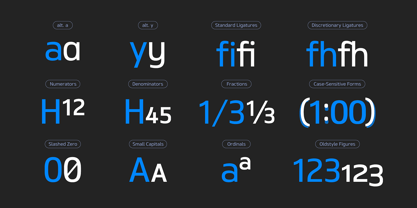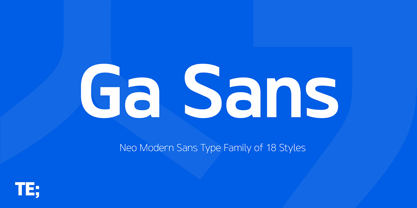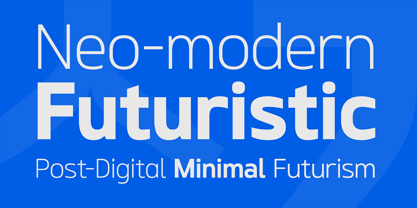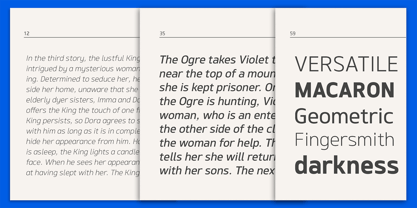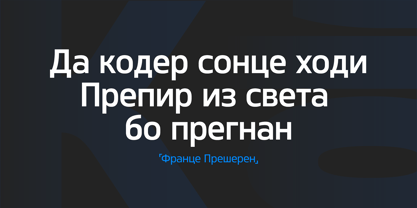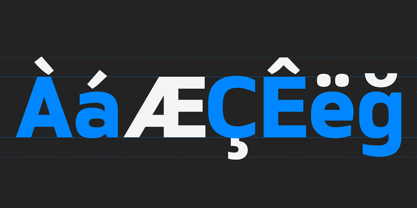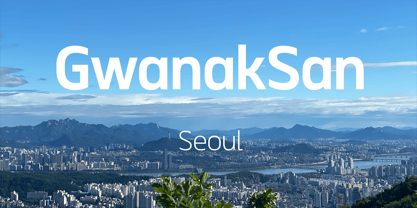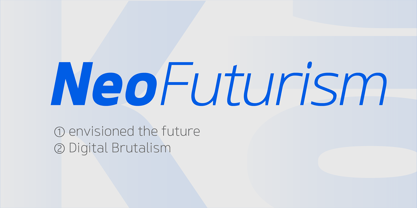
Ga Sans
The Ga Sans Font Family was designed by Hyun-Seung Lee and published by Typeedition. Ga Sans contains 18 styles and family package options. More about this family
Ga Sans Family is a futuristic, neo-modern sans-serif typeface that is clean, simple and highly readable. Letters in this type family are designed with geometric shapes without any decorative distractions. The spaces between individual letter forms are precisely adjusted to create the perfect typesetting. Ga Sans is a versatile type family of 18 fonts. Ga Sans family consists of 9 weights (Thin, ExtraLight, Light, Regular, Medium, Bold, ExtraBold, Heavy & Black). Ga Sans family is as same as TE Ga family but but it is a font family that excludes Korean characters. Ga Sans family contains complete Latin 1252, Cyrillic, Central European 1250, Turkish 1254 character sets. Each font includes proportional figures, tabular figures, numerators, denominators, superscript, scientific inferiors, subscript, fractions and case features. We highly recommend it for use in books, web pages, screen displays, and so on.